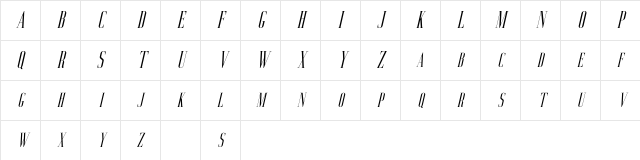
Complete Aguero Serif Free Italic glyph index. Displaying only characters natively supported by Aguero Serif Free Italic font.
Aguero Serif Free carries the refined structure of traditional serif typography, with bracketed terminals and considered proportions that communicate credibility and craft. The slanted form adds forward momentum and visual energy.
Pro Tip: Use Aguero Serif Free for editorial body copy and considered headline work. Pair with a neutral sans for UI elements or captions to create a classic hierarchy.